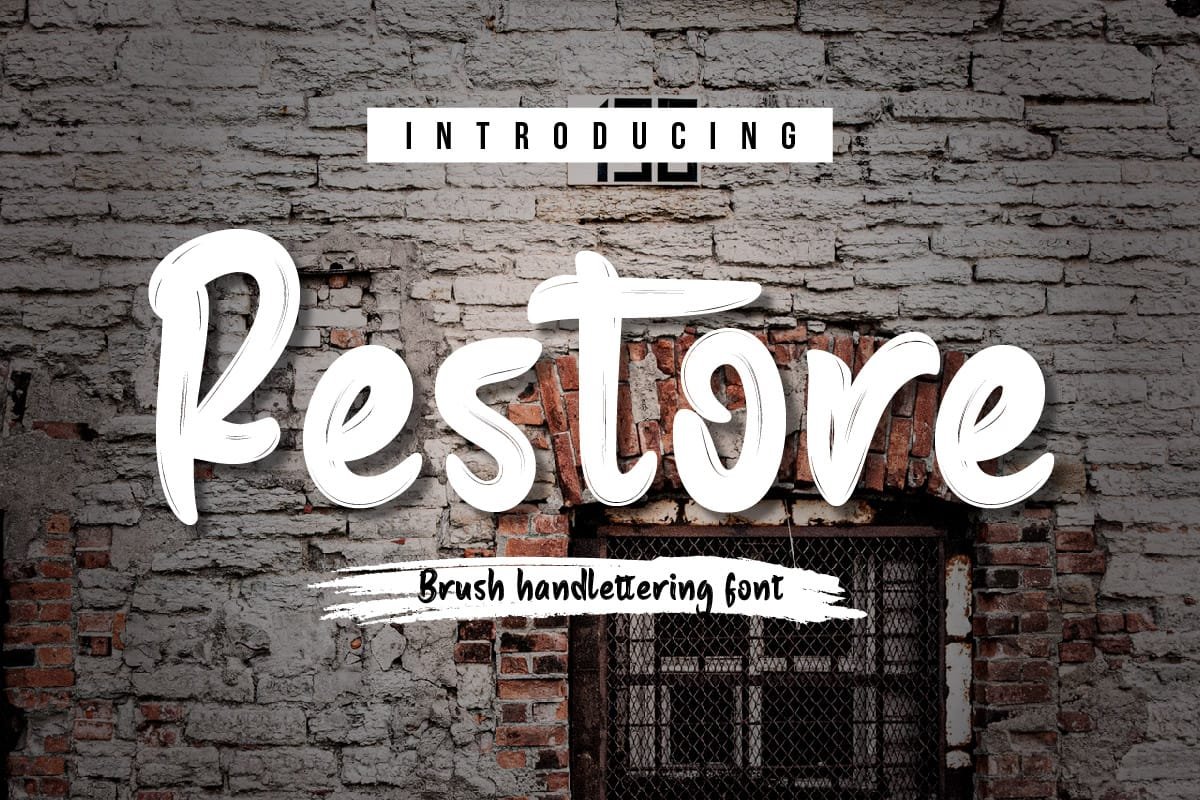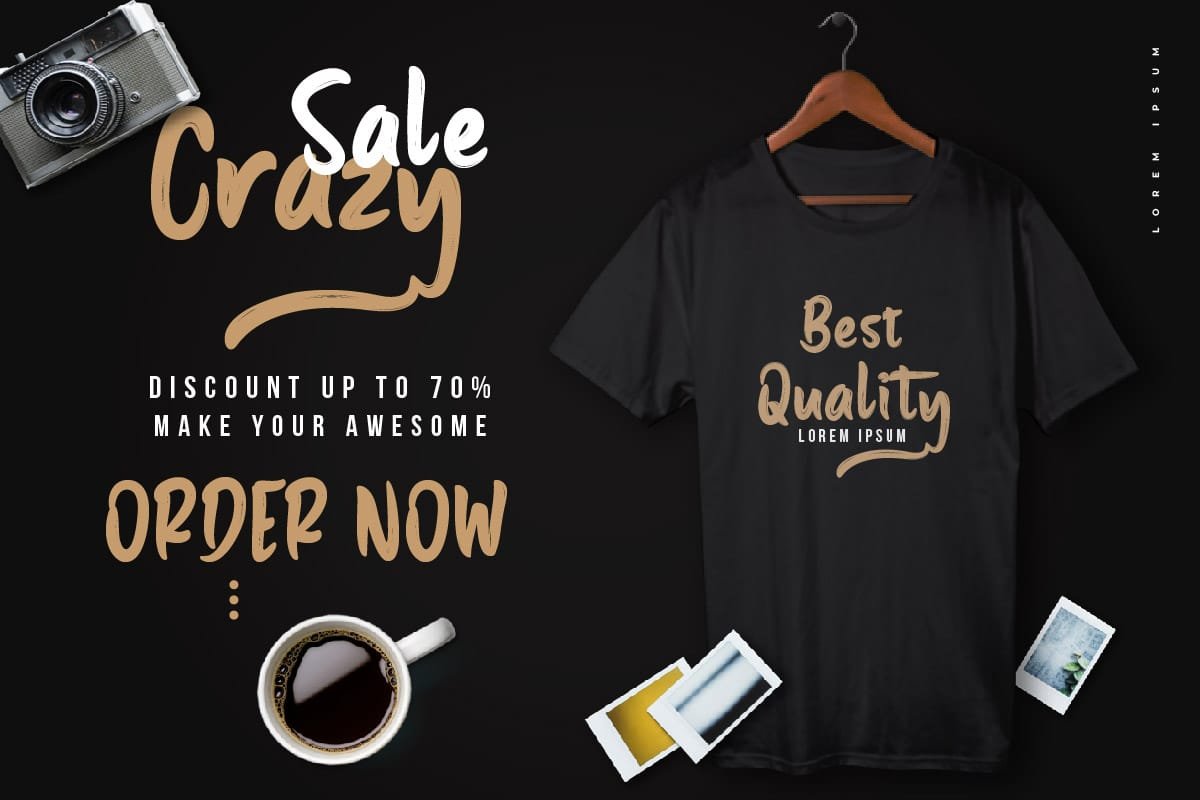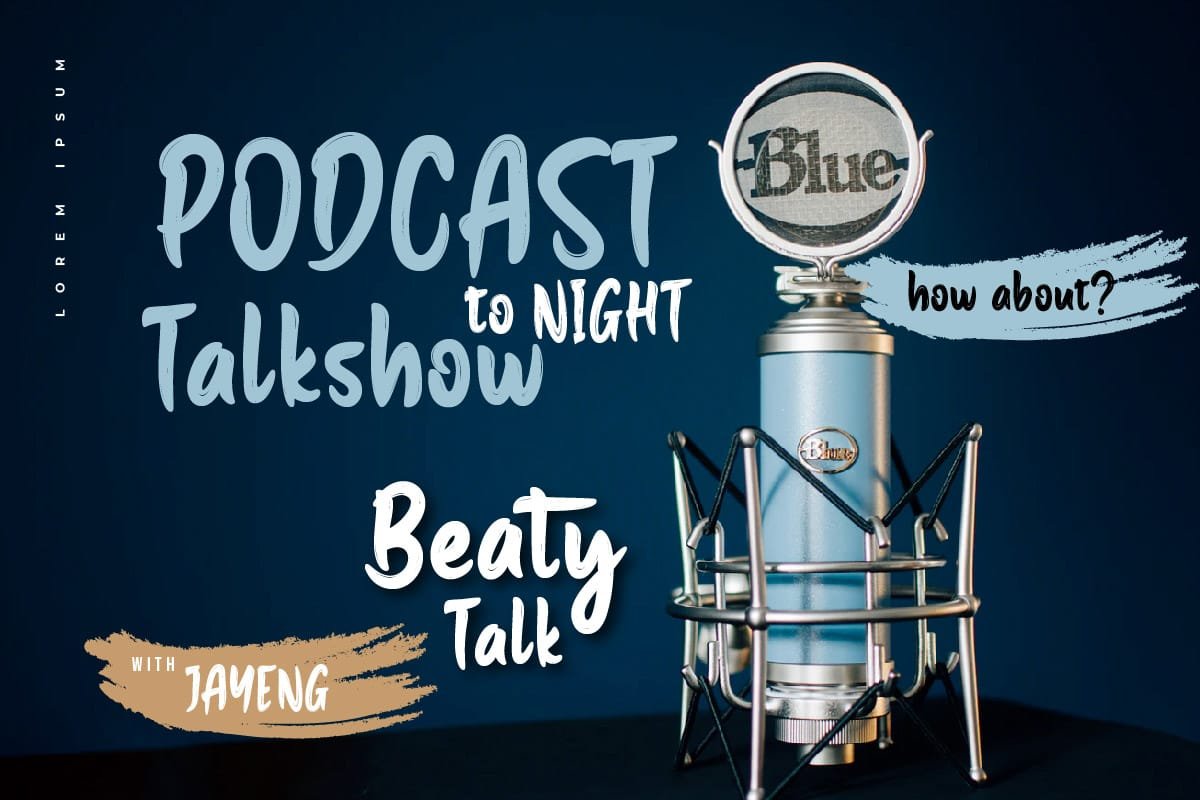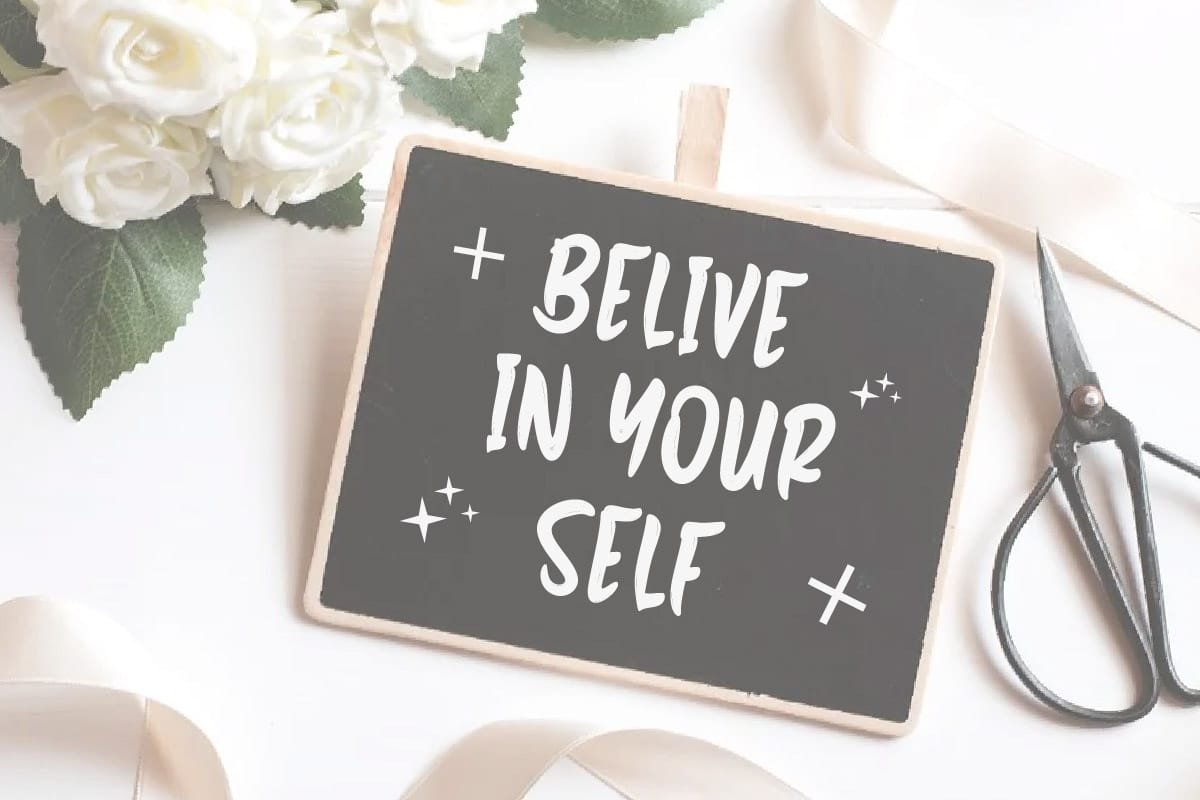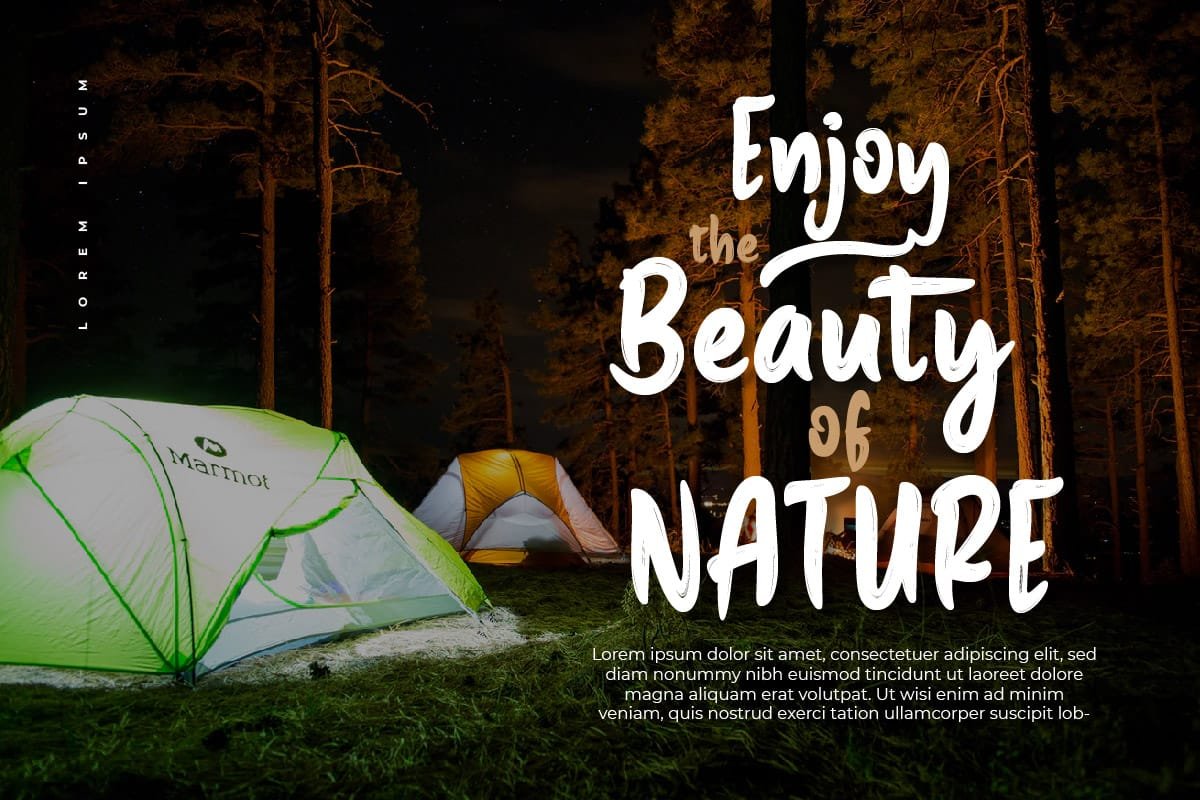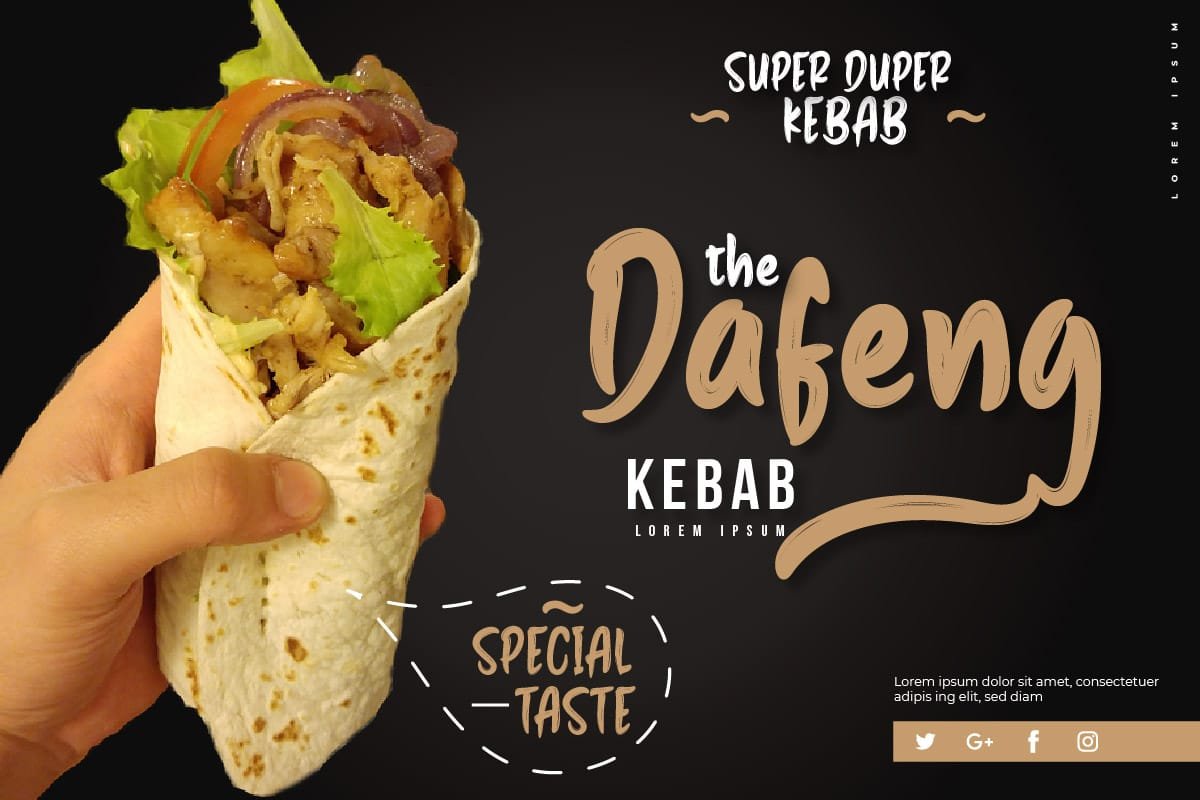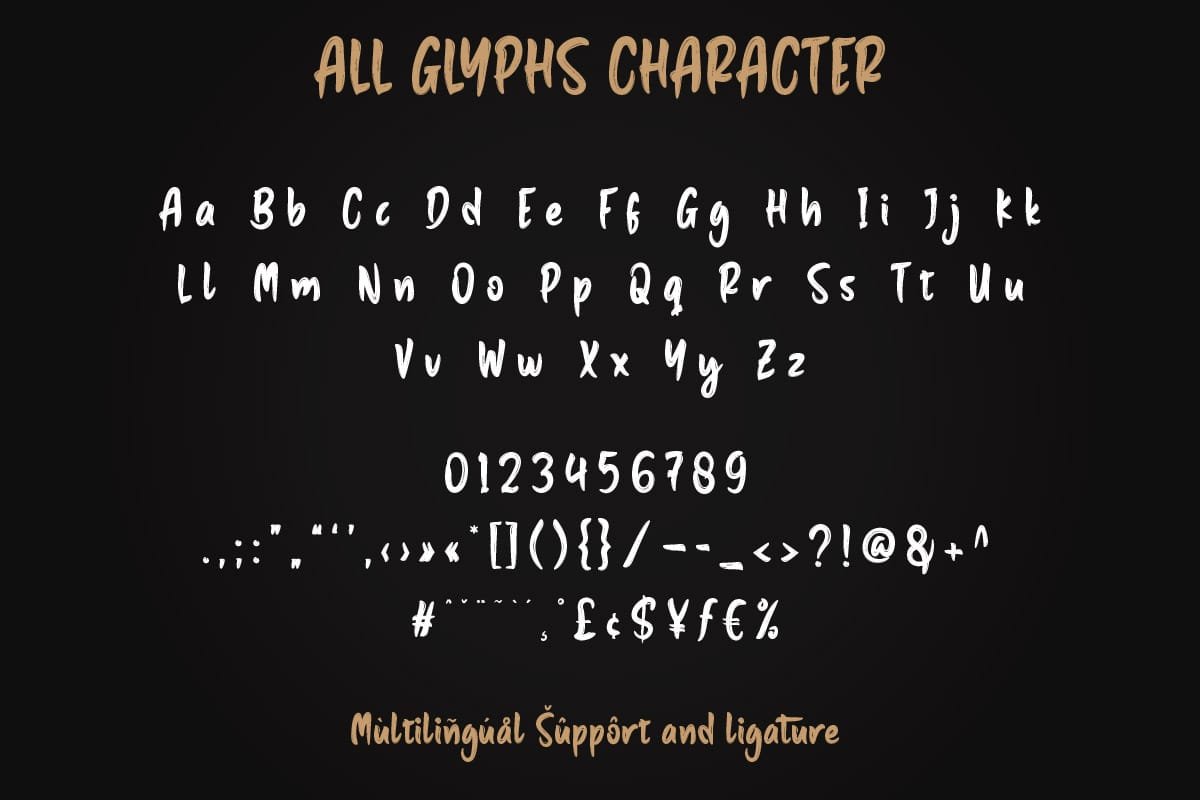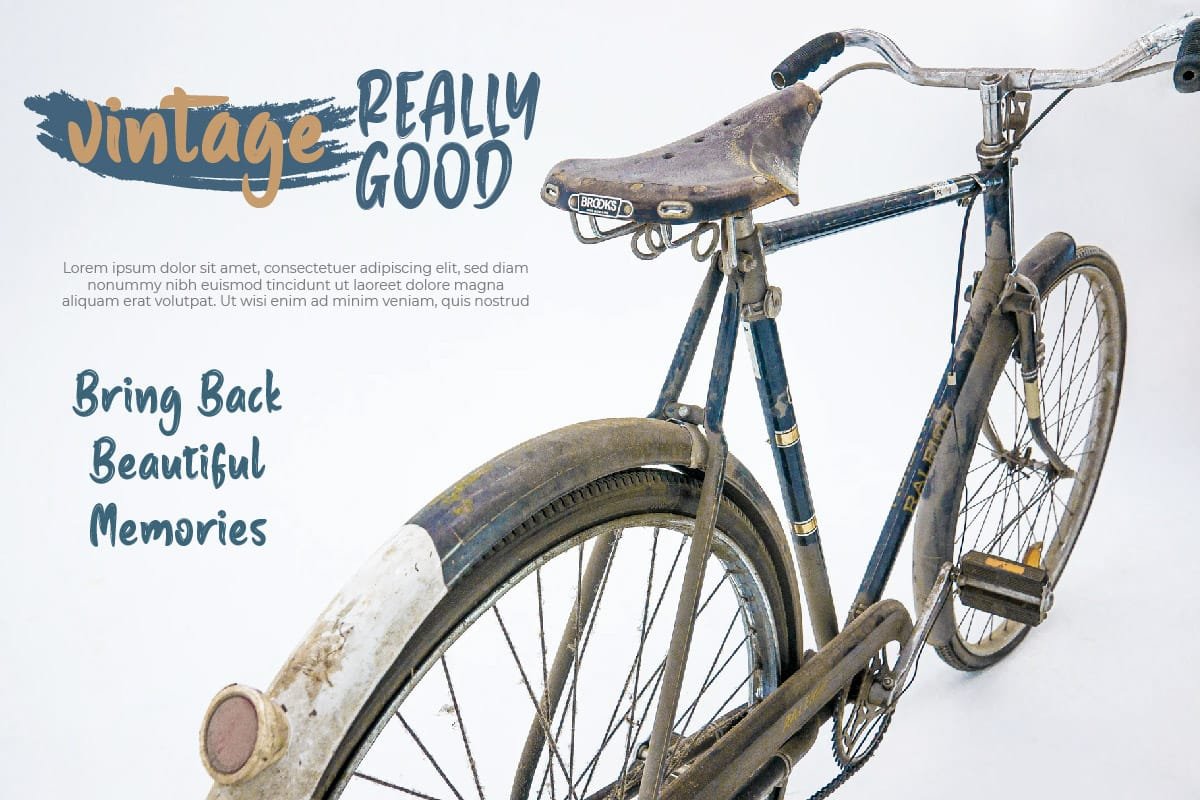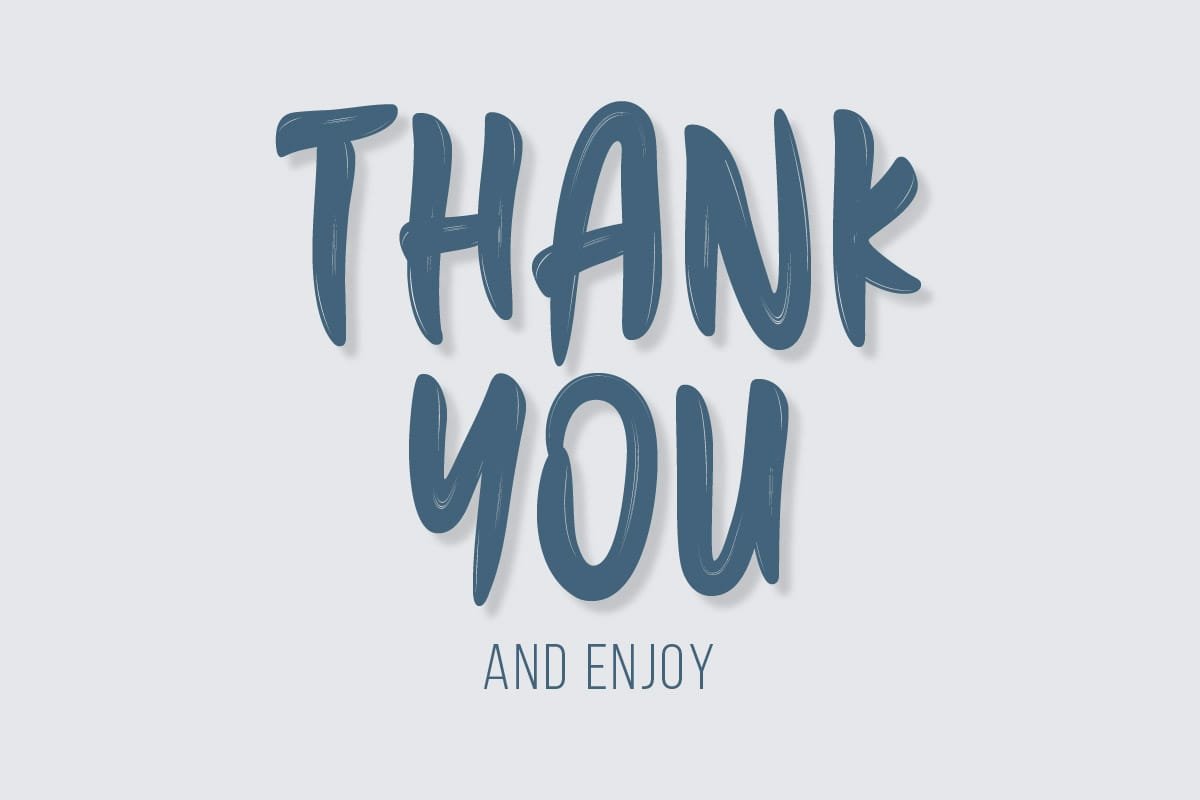
- Restore – Brush Handwritten Font
Restore is a tranquil and refreshing handwritten font. With smooth lines and gentle characters, this font exudes a sense of calmness and rejuvenation. Suitable for projects looking for a soothing and liberating appearance, such as meditation material designs, postcards, or artworks aiming to bring peace.